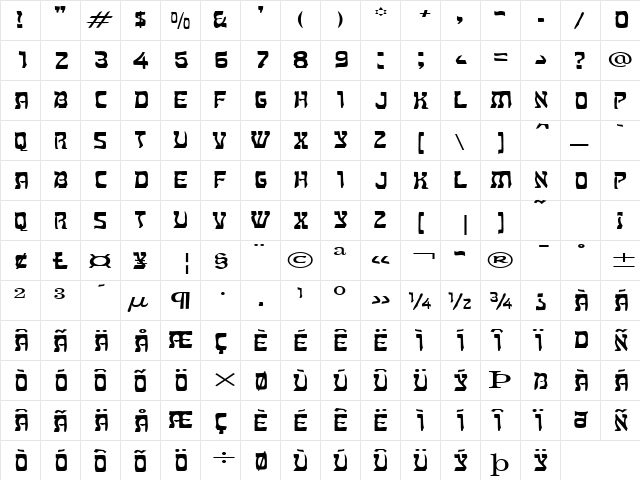
Kosher Extended Normal
Design Context for Kosher Extended Typeface
Kosher Extended is a composed and adaptable typeface that performs quietly and consistently across a wide range of design contexts.